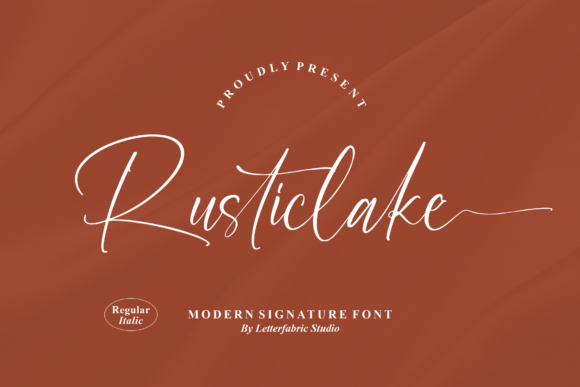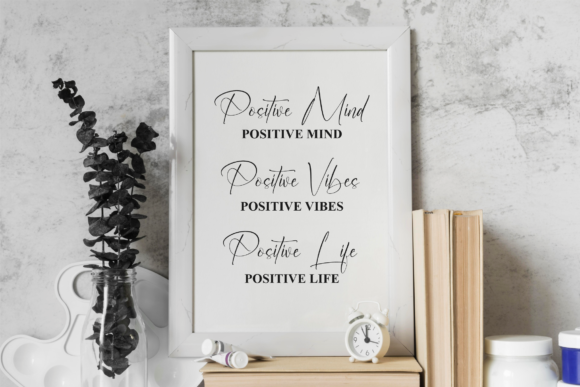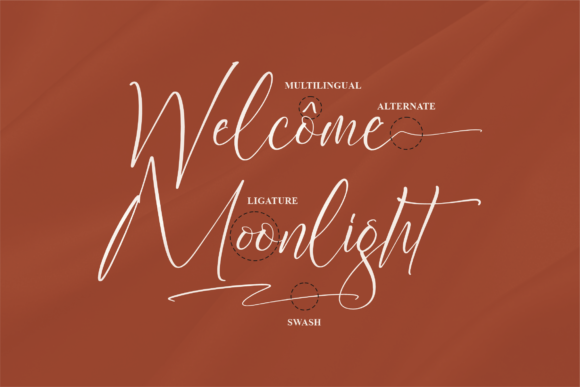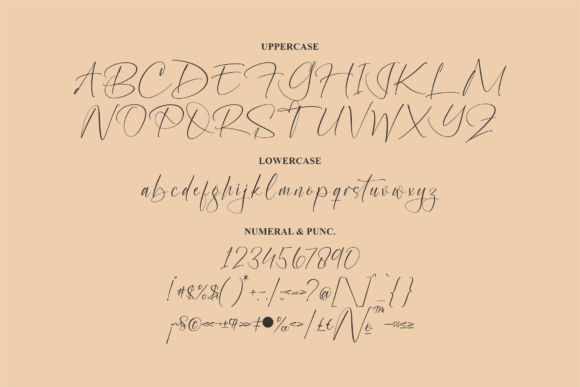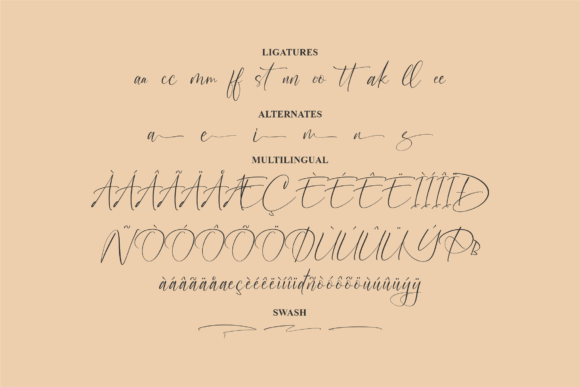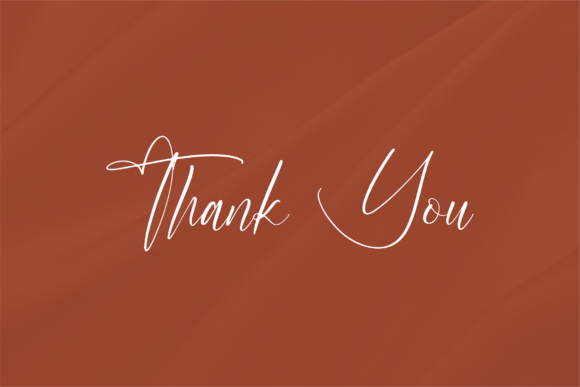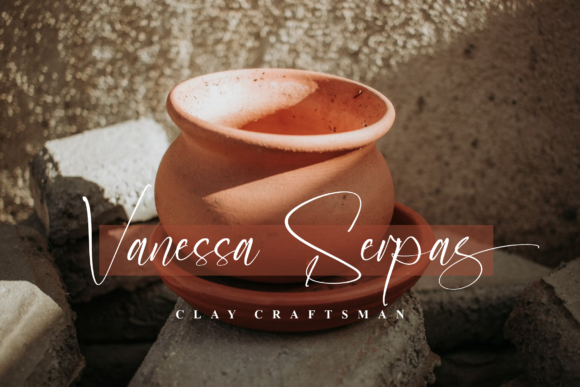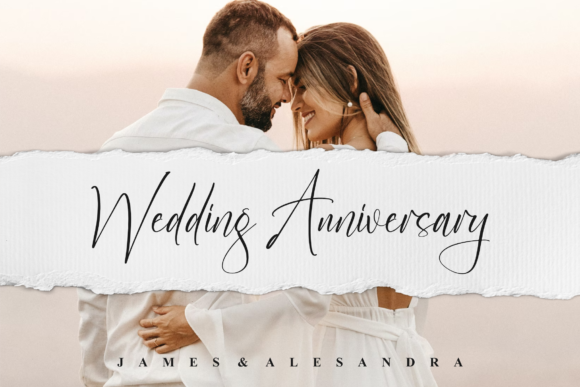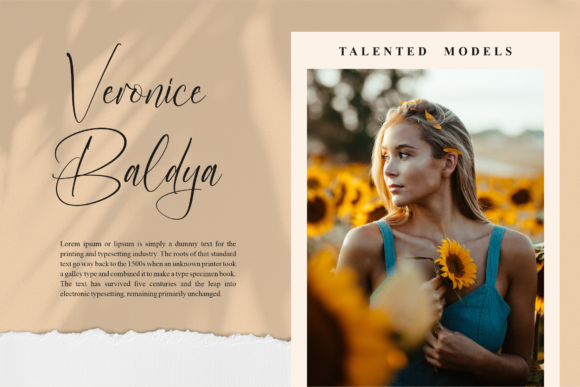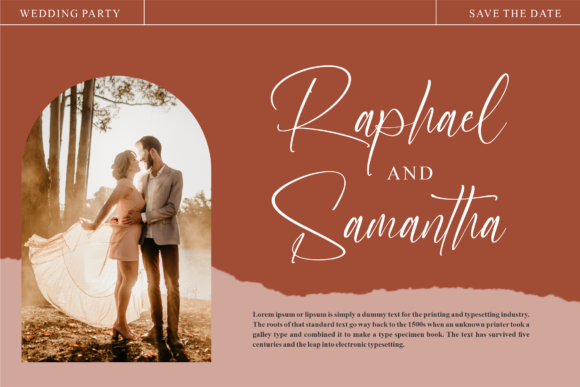
About Rusticlake Font
Rusticlake is a free-flowing script font that exudes a sense of natural charm and high-quality vibes. It has been carefully crafted to enhance a wide array of design projects, from packaging products to invitation cards, flyers, mockups, event posters, and more.
This font’s unique appeal lies in its free-flowing and organic character. The letters flow seamlessly, capturing the essence of handwriting with a touch of rustic elegance. Rusticlake’s balanced design ensures that it harmoniously blends into various design contexts, making it a versatile choice for a diverse range of creative projects.
When used for packaging products, Rusticlake adds a personal touch that resonates with customers. Its handwritten style brings a sense of authenticity to labels, tags, and packaging designs, creating a connection between the product and the consumer. This font’s combination of high-quality vibes and rustic charm creates a visual experience that leaves a lasting impression.
Invitation cards come to life with Rusticlake’s warm and inviting letterforms. Whether it’s wedding invitations, event announcements, or party invitations, this font infuses your designs with a sense of heartfelt warmth. Its free-flowing strokes capture the spirit of celebration and anticipation, setting the tone for the event in a unique and memorable way.
Flyers and mockups benefit from Rusticlake’s distinctive character, standing out from the crowd with its organic and casual style. This font adds a touch of personality to event posters, promotional materials, and advertising campaigns, making them more relatable and engaging to the target audience.
Incorporating Rusticlake into your design arsenal provides you with a versatile tool that aligns with various design aesthetics. Its adaptability and balanced character ensure that it works well across different themes and styles, giving you the creative freedom to experiment and explore.
Overall, Rusticlake is a font that encapsulates the essence of free-flowing expression and high-quality design. Its versatility, balanced design, and natural charm make it an ideal choice for packaging, invitations, flyers, mockups, event posters, and any project that requires a touch of authentic personality.